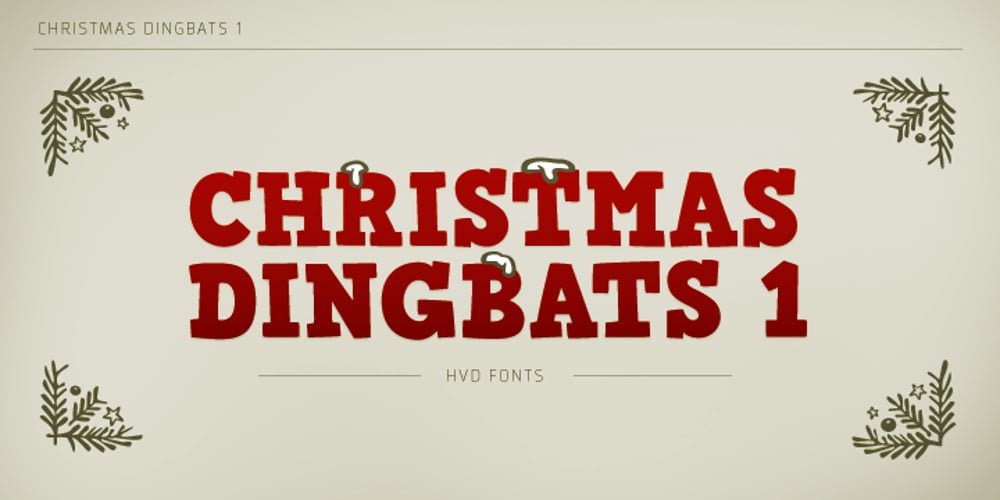
Christmas Dingbats 1
Christmas Dingbats 1 font
Christmas Dingbats 1 Font Family was designed by Hannes von Döhren and published by HVD Fonts. Christmas Dingbats 1 contains 1 styles and family package options. Christmas Dingbats 1 and Christmas Dingbats 2 are two Christmas fonts with different styles. Each font contains more than 90 Christmas icons, borders and ornaments.